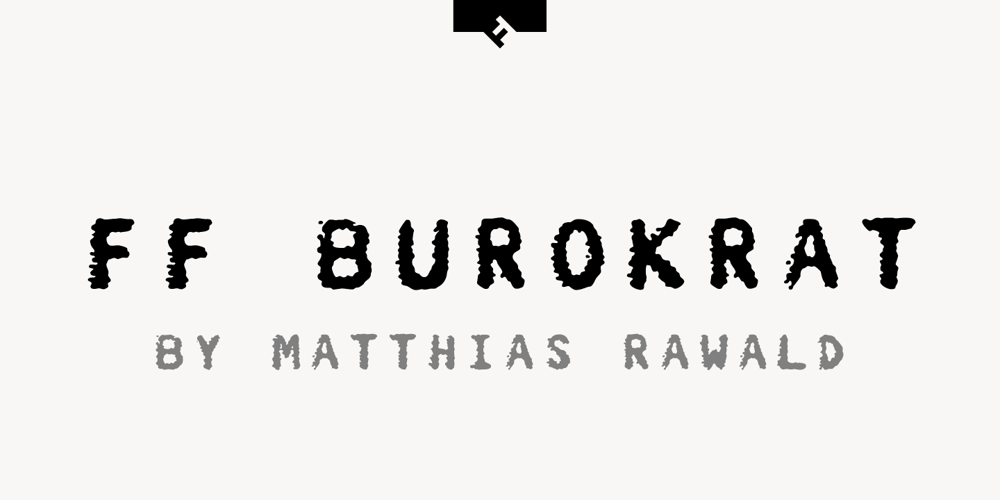
FF Burokrat
FF Burokrat font
FF Burokrat Font Family was designed by Matthias Rawald and published by FontFont. FF Burokrat contains 3 styles and family package options. German type designer Matthias Rawald created this display FontFont in 1996. The family contains 3 weights and is ideally suited for film and tv, music and nightlife, poster and billboards as well as software and gaming. FF Burokrat provides advanced typographical support with features such as ligatures and case-sensitive forms. It comes with tabular lining figures.